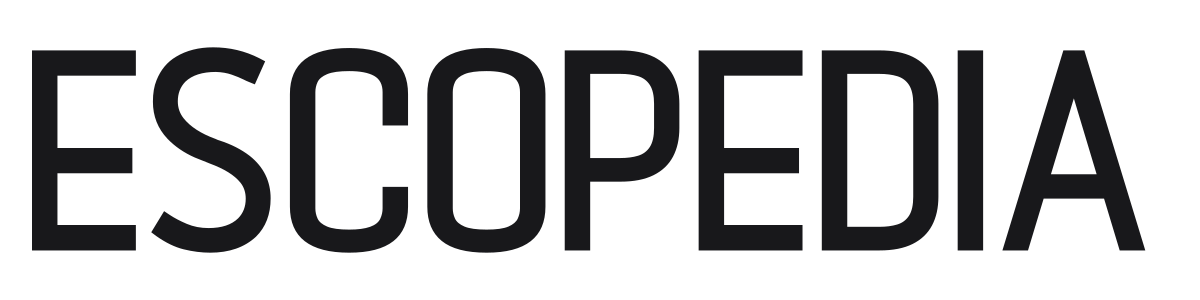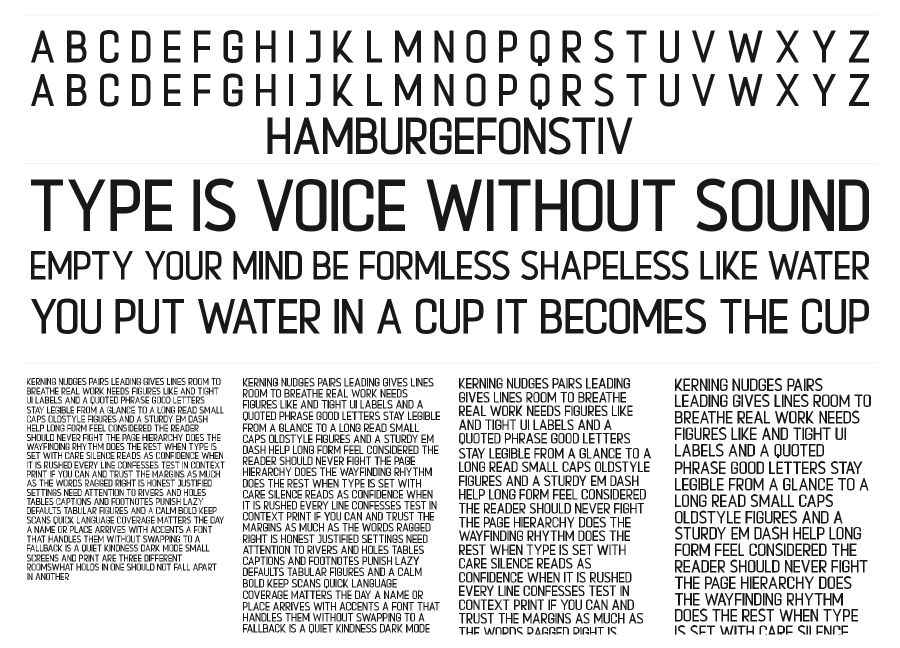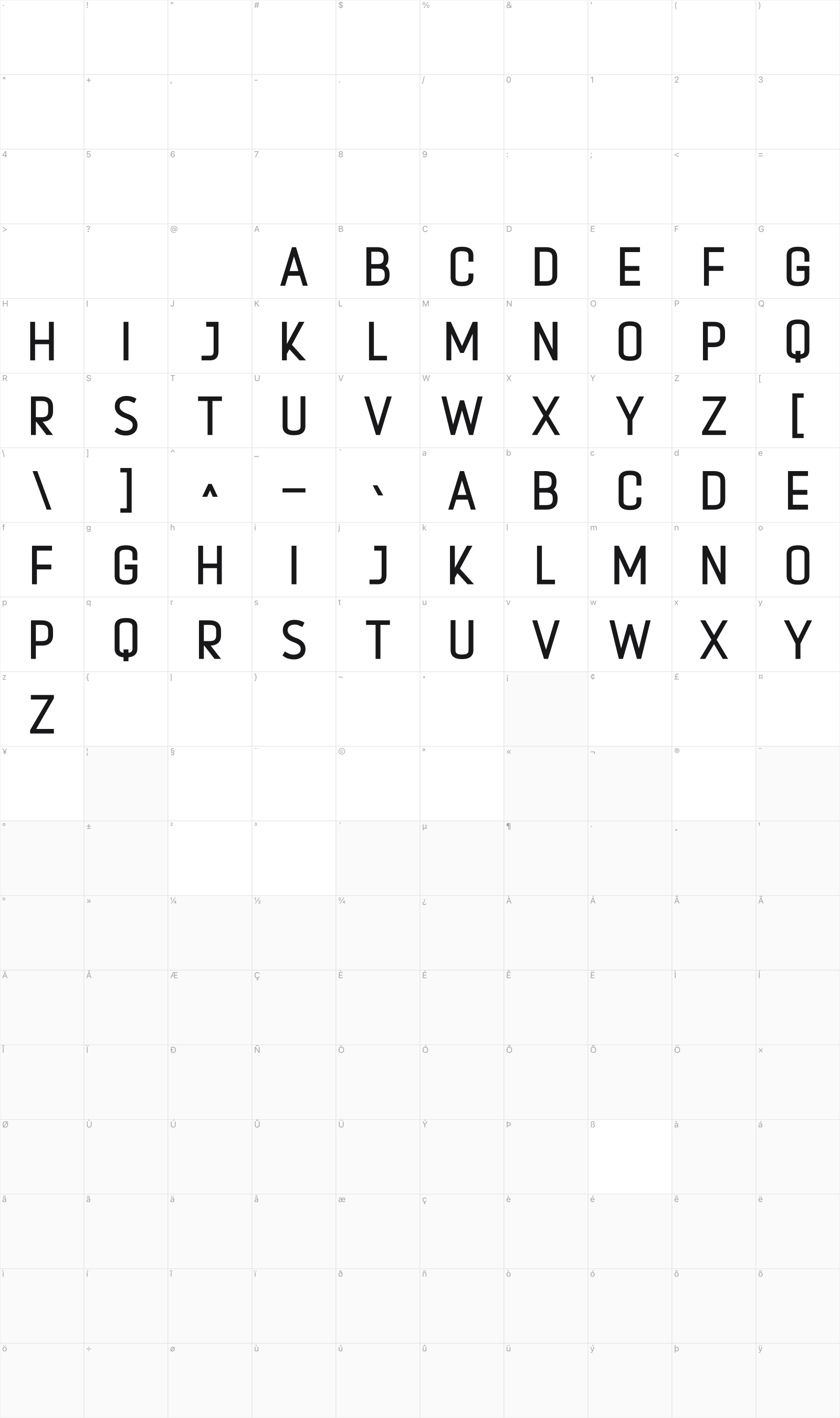
Escopedia
Escopedia is a condensed geometric sans-serif with clean monoweight strokes and flat terminals. Its tall, narrow proportions and even rhythm make it a solid choice for headlines, wordmarks, and any setting where space is tight but impact matters. The geometry is disciplined without being cold.